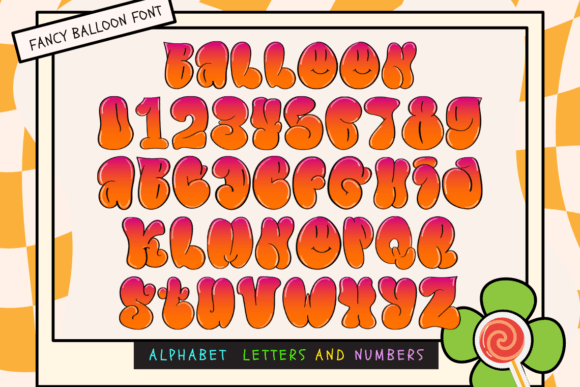
Get Ready to Pop with Creativity!
Have you ever stared at a blank design canvas, feeling stuck and unsure where to begin? You’re not alone. We’ve all been there. But what if I told you there’s a way to break through that creative block and add a touch of whimsy to your designs? Enter the “Fancy Balloon Font,” a vibrant and playful color font that’s sure to bring a smile to your face and a burst of excitement to your projects.
With its lively design and versatility, the Fancy Balloon Font is the perfect addition to any graphic designer’s toolkit. Whether you’re creating invitations, posters, greeting cards, or more, this font adds a festive touch that’s sure to captivate and enchant your audience. So why settle for ordinary when you can pop with creativity? Let the Fancy Balloon Font be your go-to solution for designs that truly stand out.
Fancy Balloon Font Key Features
- Font Style: A whimsical, handwritten font with a balloon-inspired design, perfect for adding a touch of playfulness to your designs.
- Unique Characteristics: Features a unique balloon-inspired design, with varying line widths and irregular shapes that add to its playful charm.
Fancy Balloon Font Review
Overall, I think the Fancy Balloon Font is a fun and playful addition to any design project. ✨ It’s perfect for creating a whimsical and festive atmosphere, and the balloon-inspired design elements really make it stand out.
One of the things I like most about this font is its versatility. ✨ You can use it for a wide range of applications, from wedding invitations to children’s birthday party decorations. It’s also relatively easy to read, which is a plus for longer blocks of text.
While the Fancy Balloon Font is a lot of fun to work with, there are a few limitations to consider. ⚠️ One of the main issues is that it can be a bit too ornate for some projects. In particular, it may not be the best choice for projects that require a lot of serious or formal tone.
Additionally, the Fancy Balloon Font may not be the best choice for projects that require a lot of precision or fine detail. The balloon-inspired design elements can sometimes make it difficult to read small text or precise measurements.
Overall, I would recommend the Fancy Balloon Font for projects that require a playful and whimsical touch. It’s a great choice for designers who want to add a bit of fun and personality to their designs. Just be sure to use it in moderation, and pair it with simpler fonts to avoid overwhelming the viewer.
- Fun and playful design elements
- Relatively easy to read
- Versatile for a wide range of applications
- May be too ornate for some projects
- Can be difficult to read small text or precise measurements
The Fancy Balloon Font is ideal for creating playful and eye-catching designs, such as:
- Children’s birthday party graphics
- Social media graphics and ads
- Wedding invitations and decorations